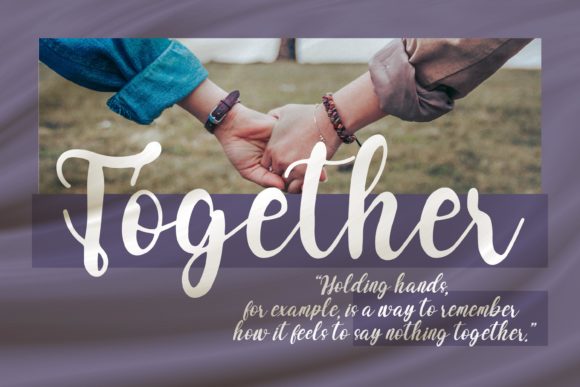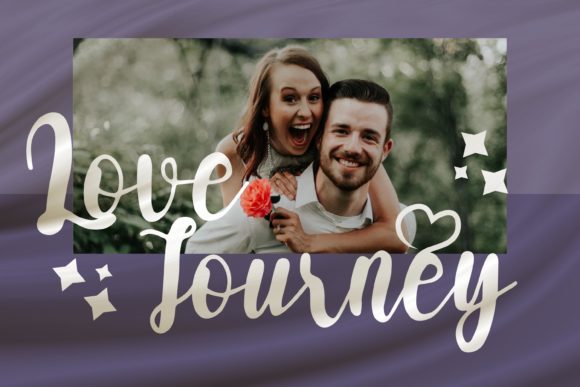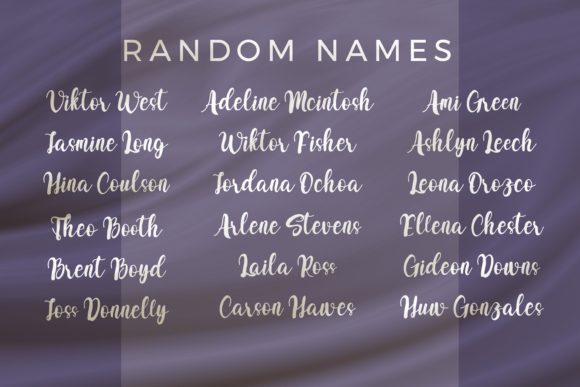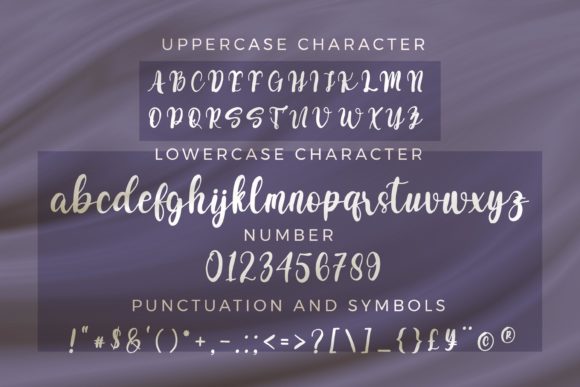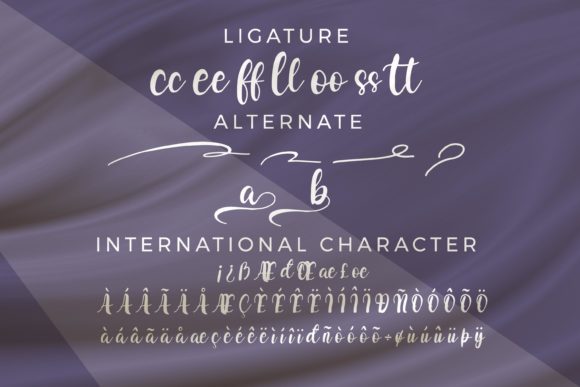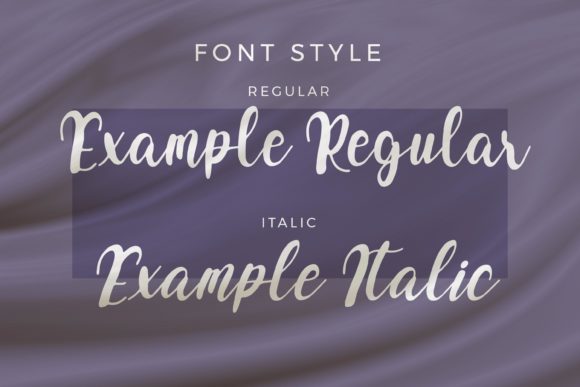
Gaseda Font: Adding a Touch of Whimsy to Your Designs
Gaseda is a lovely script font featuring charming, playful characters that seem to dance along the baseline. Add this font to your most creative ideas, and notice how it makes them stand out! In this article, we’ll dive into the world of Gaseda Font, exploring its unique features, uses, and benefits for designers and crafters.
The Charm of Gaseda Font
Gaseda Font is a script font that exudes a sense of playfulness and charm. Its characters are designed to be lively and dynamic, with a carefree spirit that’s sure to capture the attention of your audience. Whether you’re working on a branding project, a craft, or a digital design, Gaseda Font is the perfect choice to add a touch of whimsy and personality.
Unique Features of Gaseda Font
So, what makes Gaseda Font so special? Here are some of its unique features:
- Playful Characters: Gaseda Font features characters that seem to dance along the baseline, giving your text a lively and dynamic feel.
- Charming Swashes: The font includes charming swashes that add a touch of elegance and sophistication to your designs.
- High Legibility: Despite its playful nature, Gaseda Font remains highly legible, making it perfect for use in a variety of design applications.
- Versatile: Gaseda Font is versatile and can be used in a range of design projects, from branding and advertising to crafting and digital design.
Uses of Gaseda Font
Gaseda Font is a versatile font that can be used in a variety of design applications, including:
- Branding and Advertising: Use Gaseda Font to create eye-catching logos, advertisements, and marketing materials that stand out from the crowd.
- Crafting and Scrapbooking: Add a touch of whimsy to your crafting and scrapbooking projects with Gaseda Font.
- Digital Design: Use Gaseda Font in your digital designs, such as social media graphics, blog posts, and website headers.
- Wedding and Event Design: Gaseda Font is perfect for wedding and event design, adding a touch of elegance and sophistication to your invitations, programs, and other materials.
Benefits of Using Gaseda Font
So, why should you choose Gaseda Font for your design projects? Here are some benefits:
- Adds Personality: Gaseda Font adds a touch of personality and whimsy to your designs, setting them apart from the crowd.
- Enhances Creativity: The playful nature of Gaseda Font can help stimulate your creativity and inspire new ideas.
- Easy to Read: Despite its playful nature, Gaseda Font remains easy to read, making it perfect for use in a variety of design applications.
- Versatile: Gaseda Font is versatile and can be used in a range of design projects, making it a great addition to your font library.
In conclusion, Gaseda Font is a lovely script font that features charming, playful characters that seem to dance along the baseline. With its unique features, uses, and benefits, Gaseda Font is the perfect choice for designers and crafters looking to add a touch of whimsy and personality to their designs. Whether you’re working on a branding project, a craft, or a digital design, Gaseda Font is sure to make your ideas stand out!
Get Creative with Gaseda Font